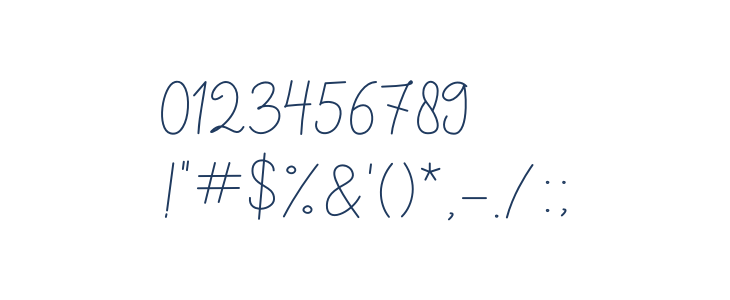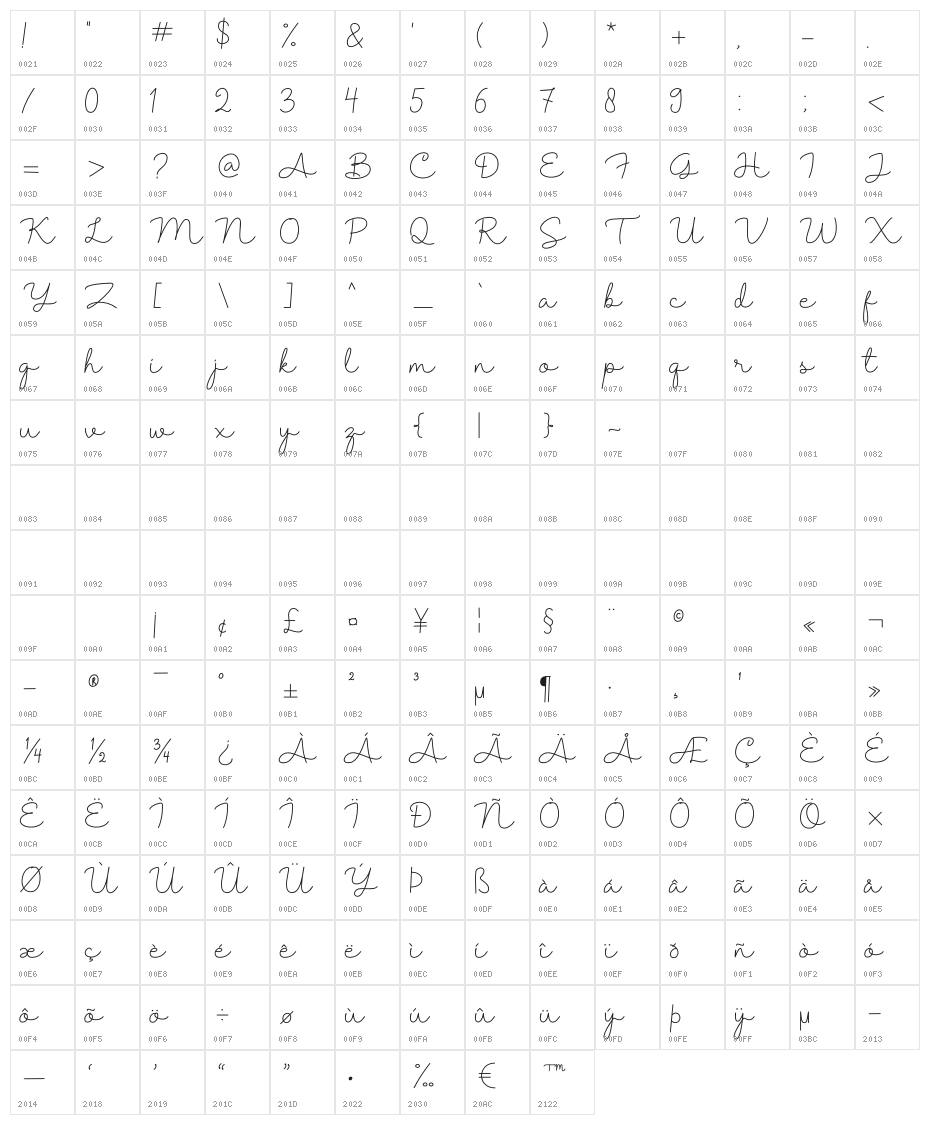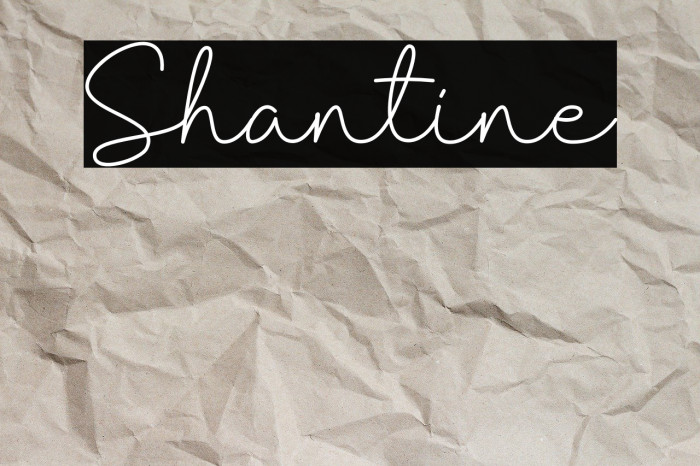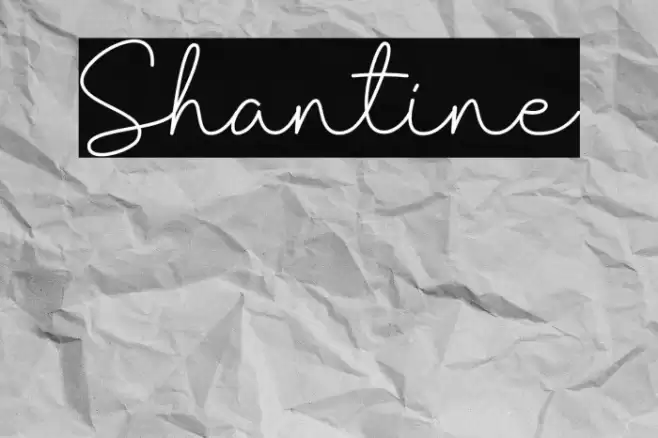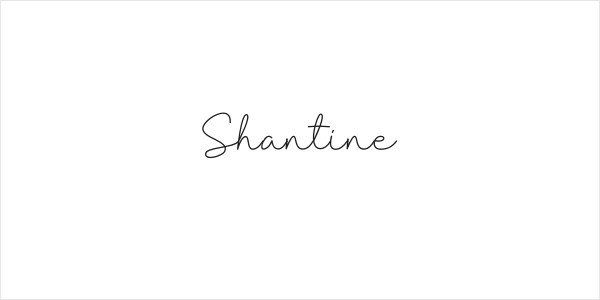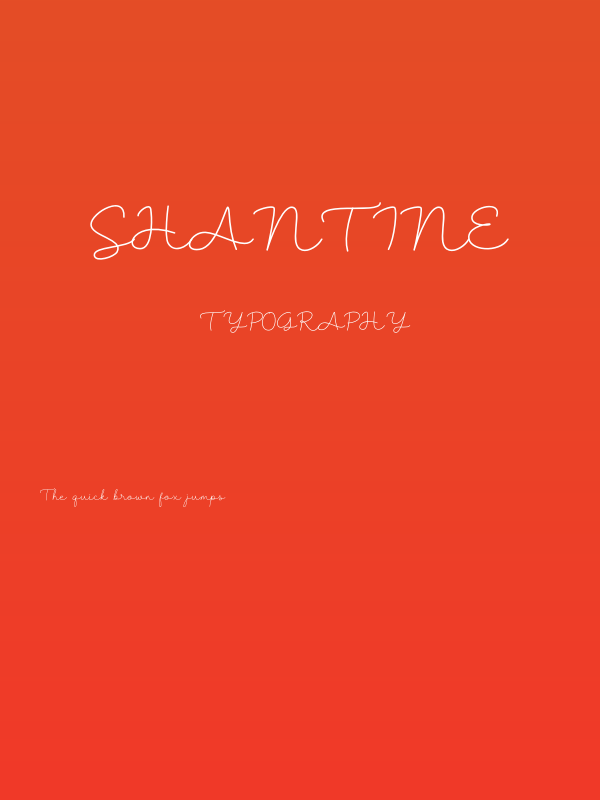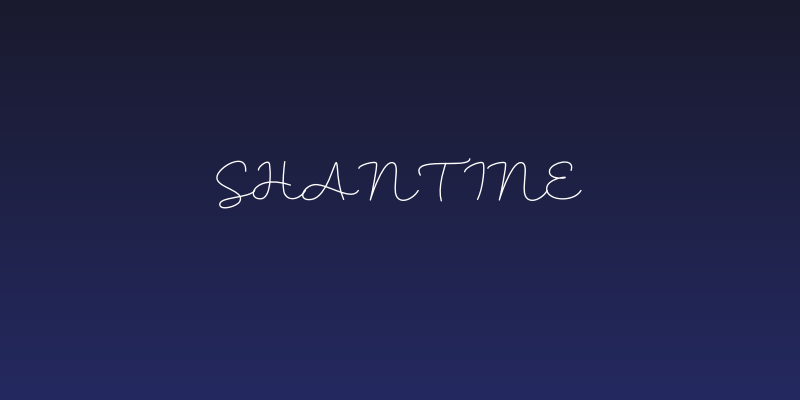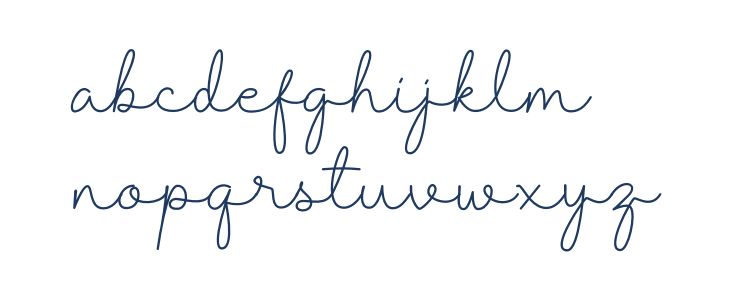
Shantine Font
Shantine Description
This font features a flowing, cursive style with elegant loops and smooth transitions between characters. The uppercase letters maintain a consistent height, while the lowercase letters exhibit a charming, handwritten quality. The numerals are clear and legible, matching the overall script aesthetic. Special characters are thoughtfully designed to complement the alphabet, adding a cohesive look to any text. The font's delicate lines and graceful curves make it suitable for projects that require a personal touch or a sophisticated appearance.
Overall StyleElegant, Handwritten
Use CaseLogos, Invitations, Personal Branding
Proposed ProjectsIdeal for wedding invitations, greeting cards, personal branding, and elegant packaging designs.